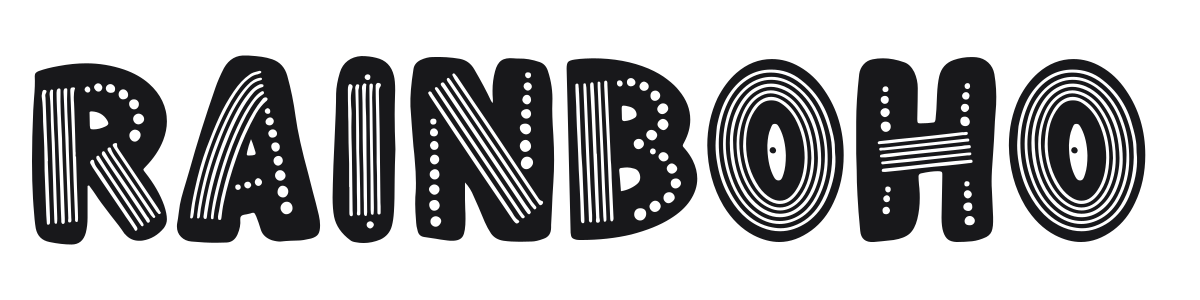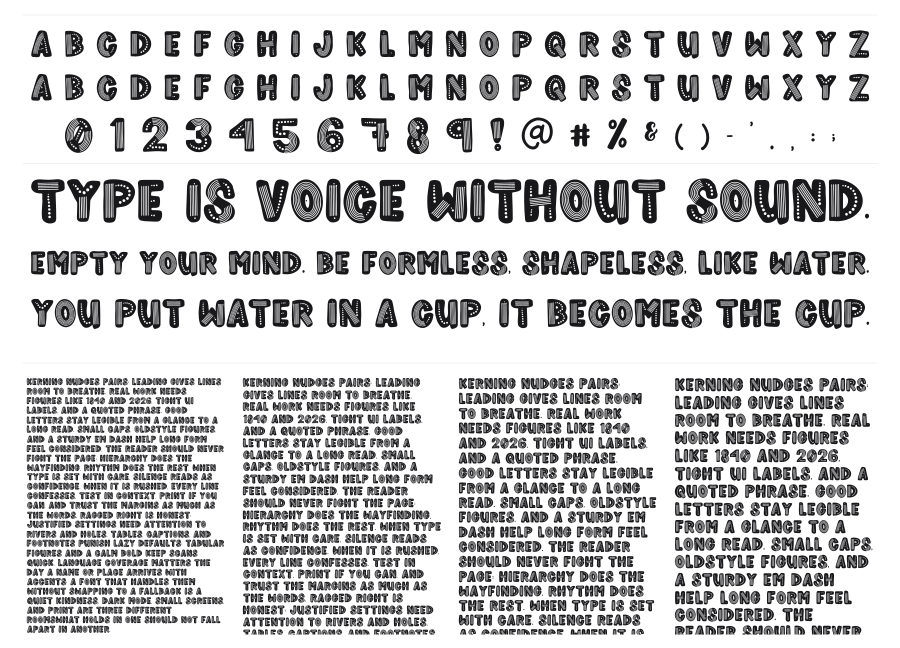
Rainboho
Rainboho is a chunky rounded display font with bold strokes filled with decorative concentric lines and dot patterns. The ornamental interior treatment gives each letter a layered, folk-art character that feels handmade and festive. It works at large scales where the detail inside the letters can breathe.